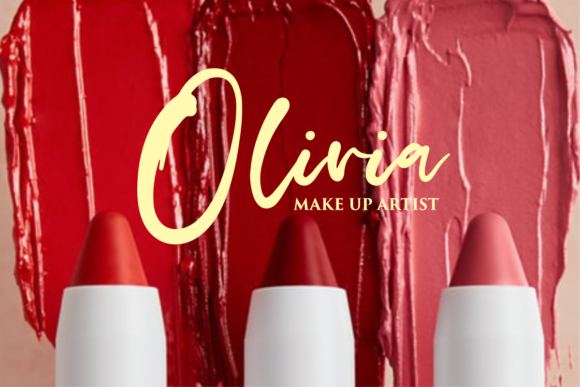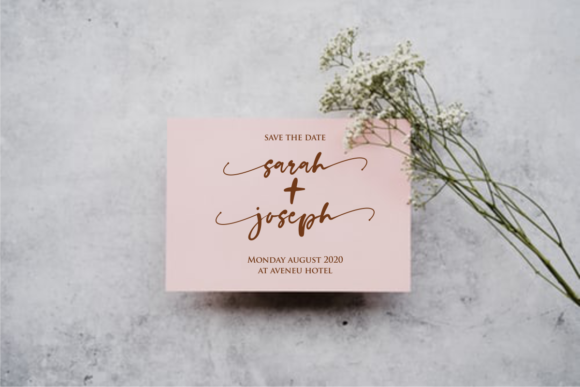
Olive Font
db-ku.com - Script & Handwritten -- Olive is authentic and charming, but also elegant. This versatile script font has a wide range of applications ranging from greeting cards to quotes, and is guaranteed to add a magical touch to your next design.